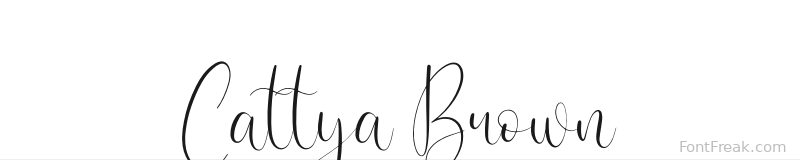
Cattya Brown
About Cattya Brown
Cattya Brown is a captivating handwritten font crafted by Perspectype Studio in 2021, designed to bring an elegant yet approachable flair to your projects. This font falls under the script category, characterized by its fluid, cursive style that exudes warmth and personality. The stroke weight exhibits a delicate contrast, with graceful thin lines intertwined with slightly bolder strokes, creating a harmonious visual rhythm. The spacing is generous, allowing the letters to breathe and enhancing overall readability while maintaining a sophisticated appearance.
The Cattya Brown font is perfect for a variety of use cases. It shines in wedding invitations, where its romantic aesthetic can add a personal touch to the special day. Additionally, it works beautifully on restaurant menus, giving a distinctive flair that can help elevate the dining experience. Graphic designers can utilize this font in branding materials, creating unique logos that resonate with their audience. It’s also an excellent choice for greeting cards, where its charm can convey heartfelt messages effectively. Small business owners looking to create a memorable online presence will find Cattya Brown to be a valuable asset for their promotional materials.
Targeted towards graphic designers, small business owners, and content creators, Cattya Brown offers versatility while remaining distinctive. Its ability to blend elegance with a casual feel makes it appealing to a broad range of audiences.
What sets the Cattya Brown font apart is its unique balance of sophistication and warmth, making it suitable for both formal and informal applications. With a Cattya Brown font free download available, you can easily incorporate this beautiful typeface into your projects and elevate the visual appeal of your designs effortlessly.